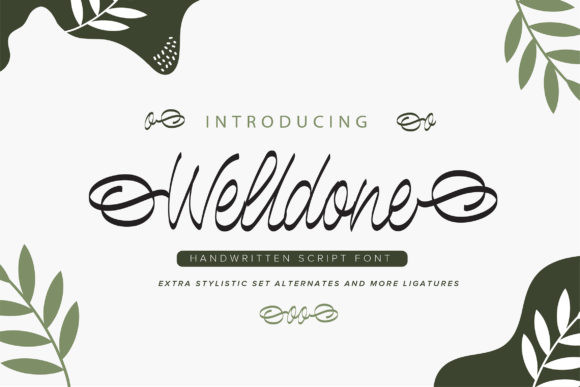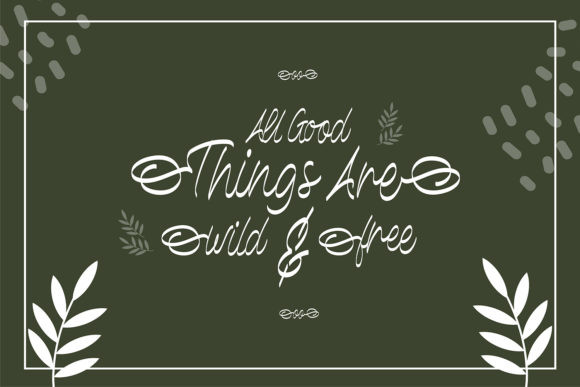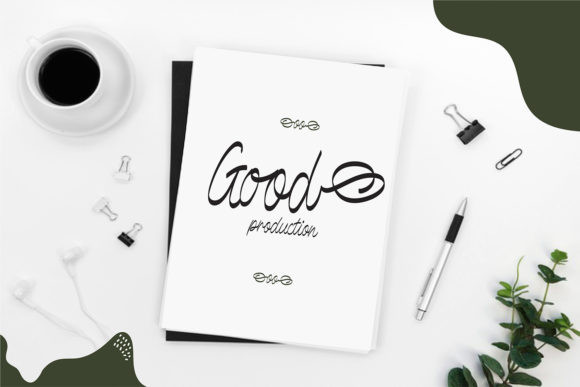
Welldone Font
Welldone is a whimsical handwritten font carefully created with a touch of elegance. It will elevate a wide range of design projects to the highest level, be it branding, headings, wedding designs, invitations, signatures, logos, labels, and much more! This font is PUA encoded which means you can access all of the cute glyphs and swashes with ease! It also features a wealth of special features including alternate glyphs and ligatures.